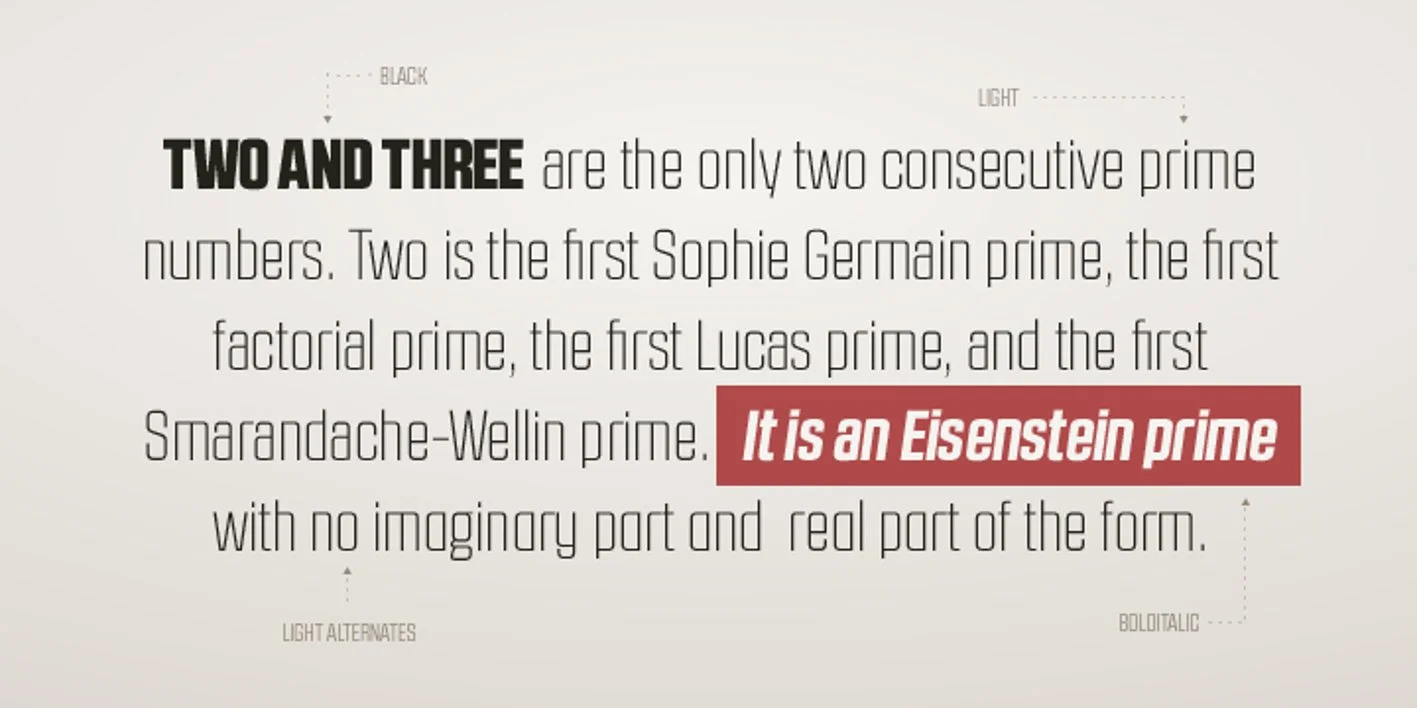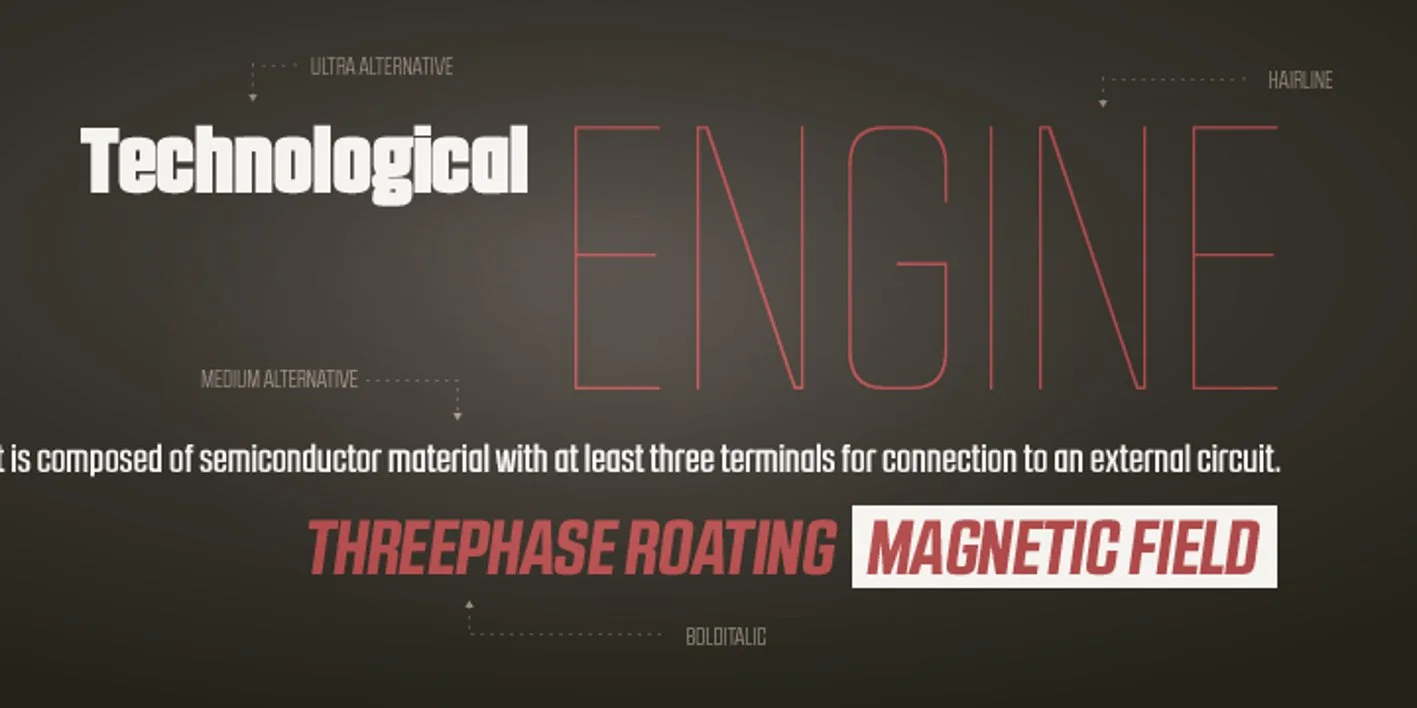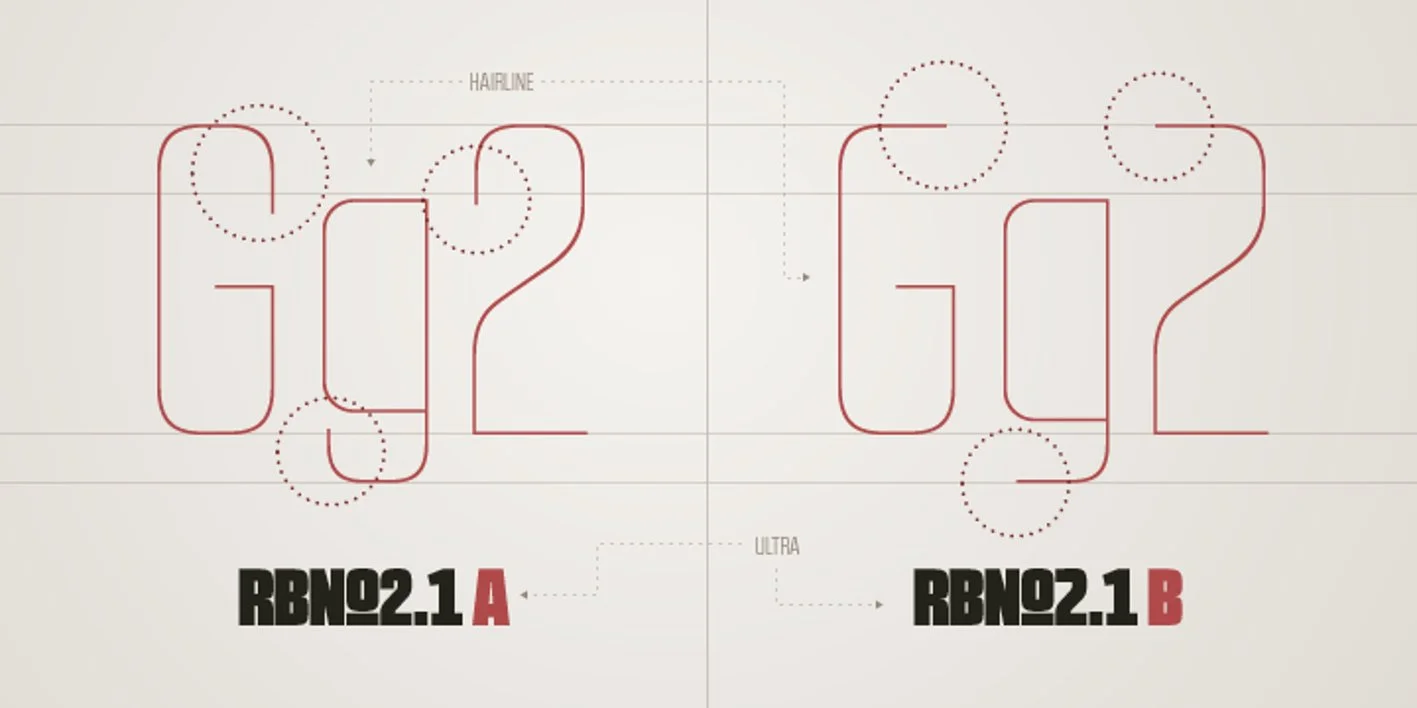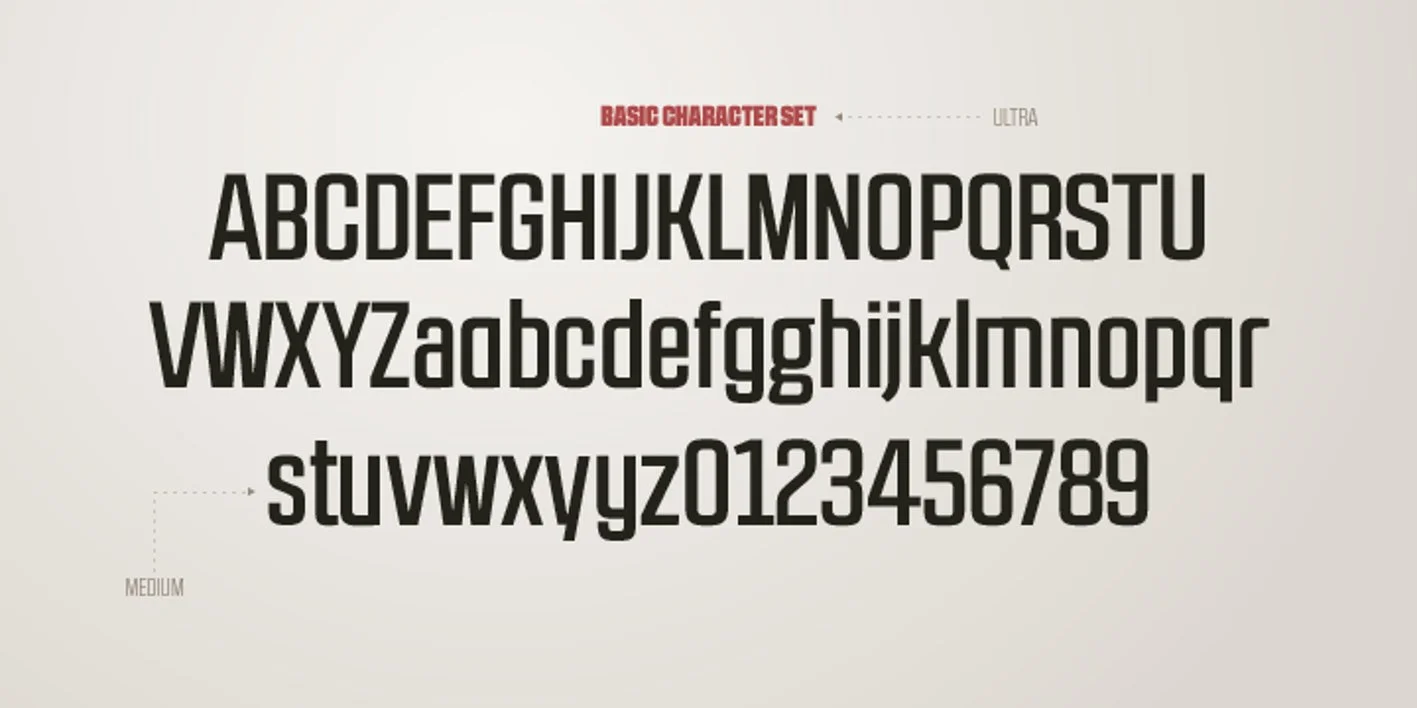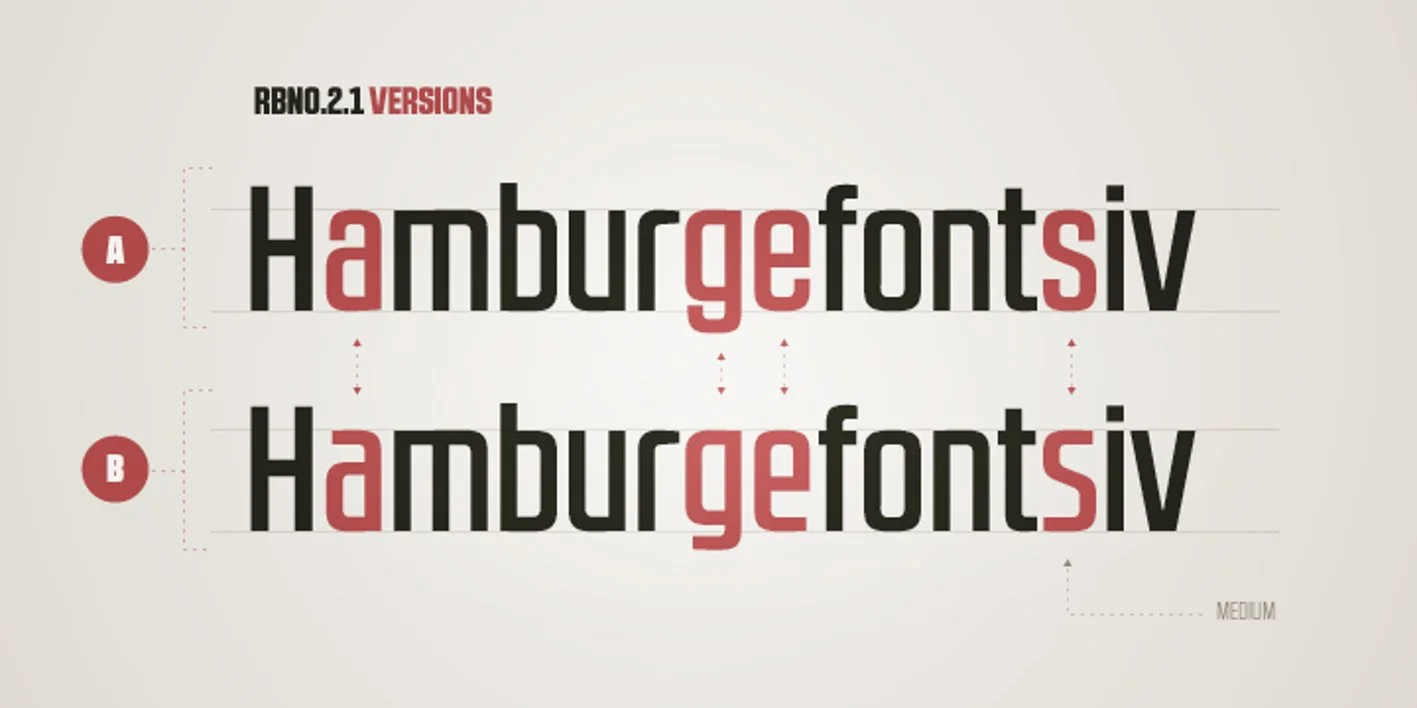
RBNo2.1 Font
Typography shapes perception at a subconscious level. RBNo2.1 leverages strong typographic hierarchy support to make every composition feel considered. The typeface brings a versatile sensibility to a broad range of creative disciplines, with visual harmony and precise spacing that holds up whether the work is print-first or screen-first.
In practice, RBNo2.1 proves particularly effective for annual reports, environmental graphics, social media graphics, advertising campaigns, poster creation. Designers reaching for it find that the type decisions feel resolved rather than laboured — a useful quality when client timelines are tight.
The range of applications extends to brand identity systems, packaging design, logo design, product labels. That breadth is deliberate: the proportions and spacing were stress-tested across a wide range of mock briefs before the typeface was finalised.
Pairing RBNo2.1 with a contrasting serif or a neutral grotesque gives mixed-format layouts a clear visual grammar without requiring constant size adjustments to establish hierarchy.
UX designers establishing typographic systems for digital products find RBNo2.1 a reliable choice for projects that demand both personality and restraint. The design avoids the self-conscious quirkiness that dates quickly, settling instead for considered distinctiveness that holds up over time.